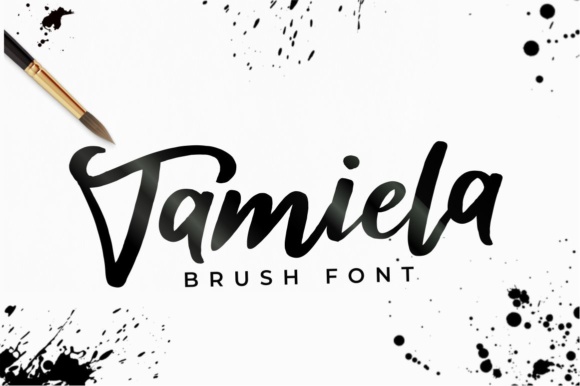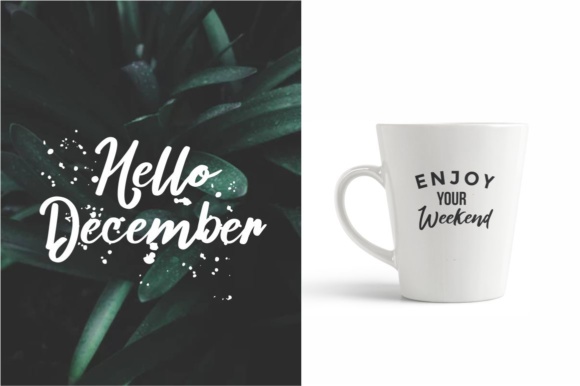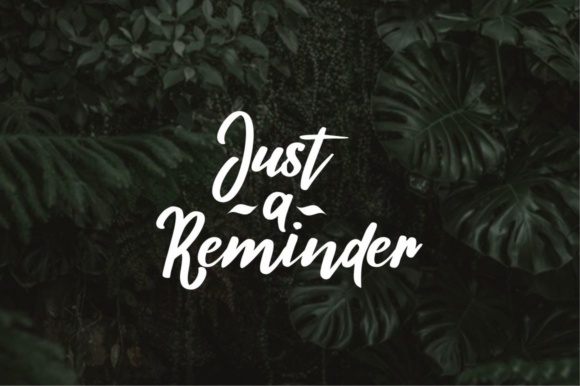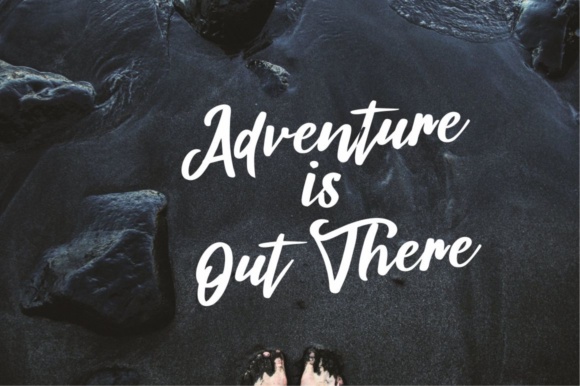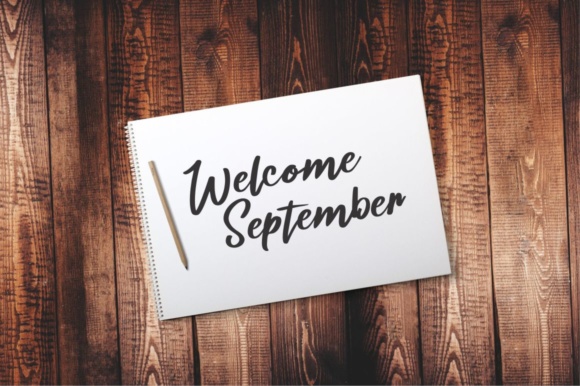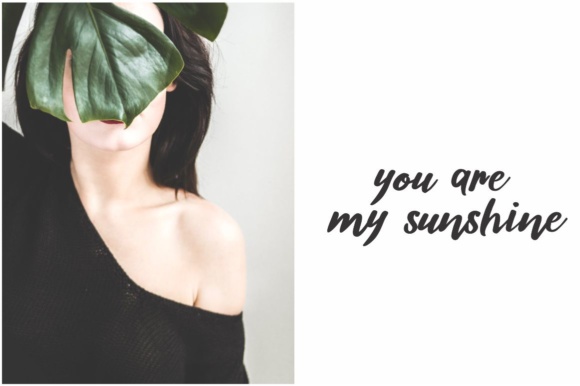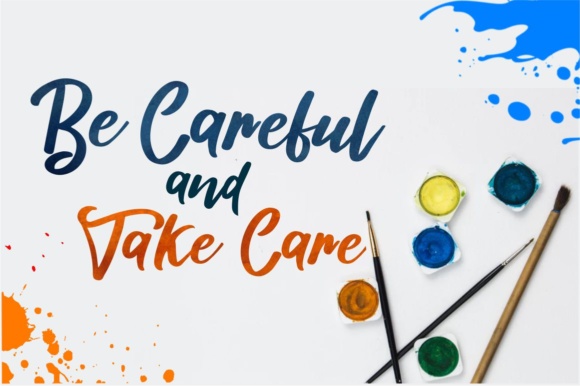
Tamiela Font
About Tamiela Font
Tamiela is a beautiful handmade brush font, with a bold weight perfect for adding some romance and charm to your designs. This bold and dynamic script functions most strongly as a display or headline font.